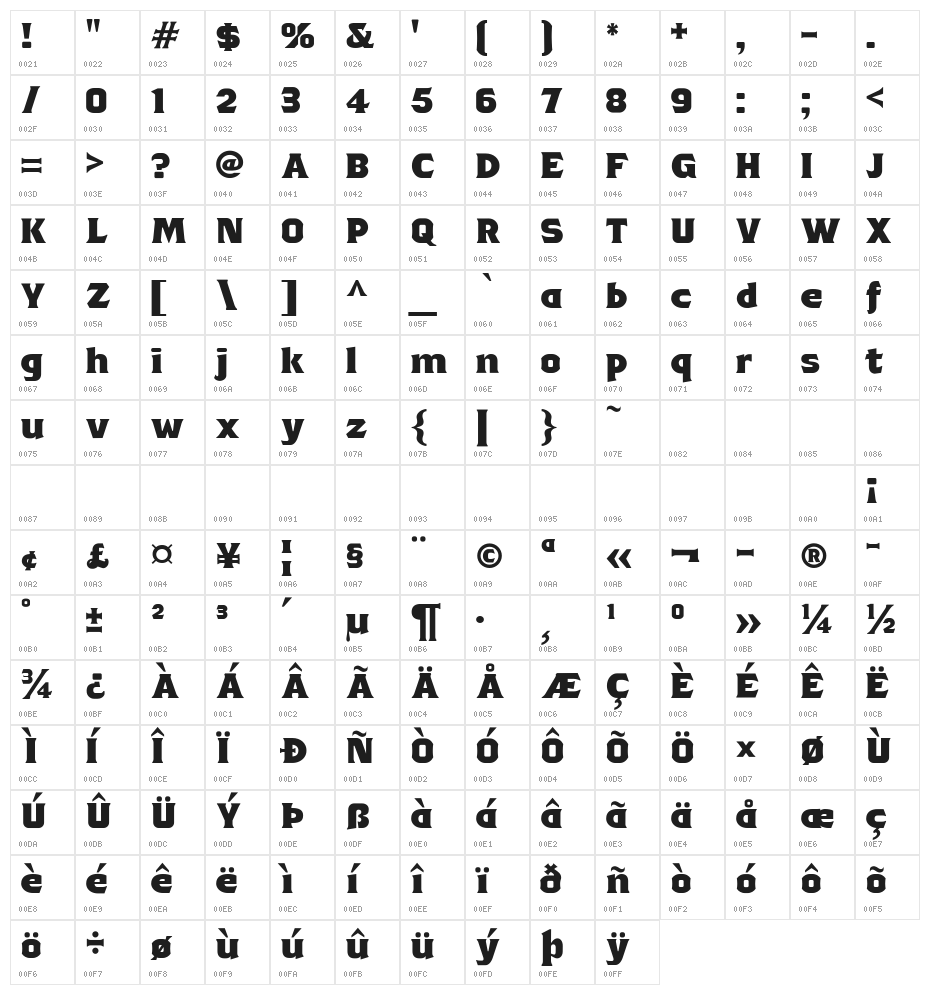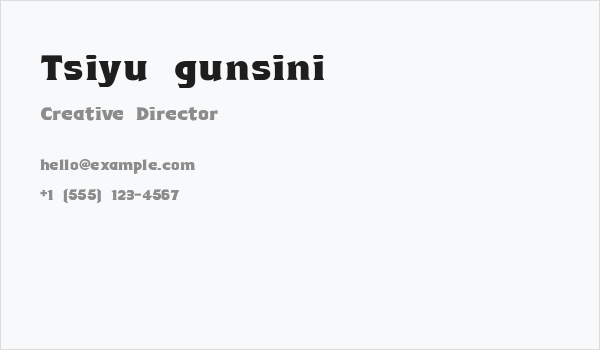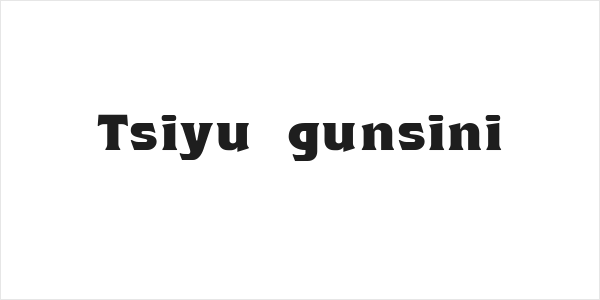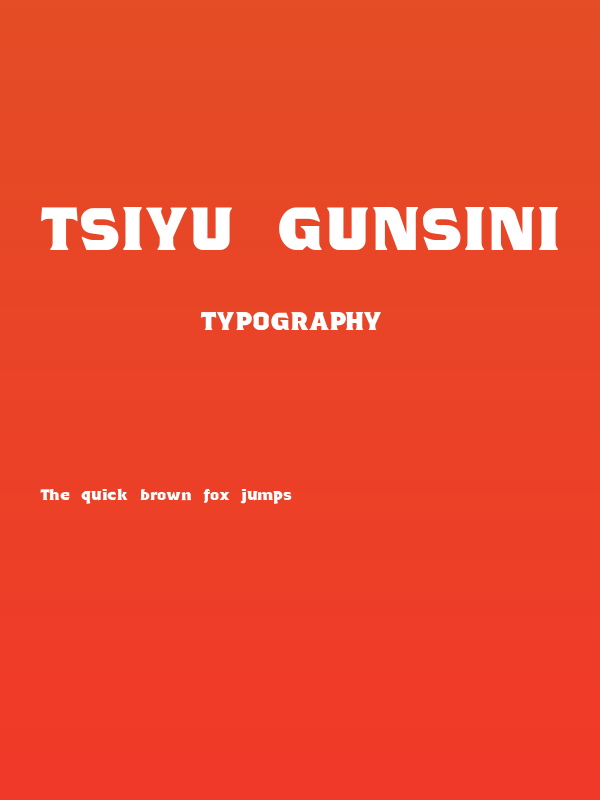
Tsiyu gunsini Font
Tsiyu gunsini Description
This font exhibits a bold and dynamic style with a strong presence. The characters are robust and slightly condensed, featuring thick strokes that convey a sense of strength and stability. The uppercase letters are particularly striking, with angular and sharp edges that add a touch of modernity. The lowercase letters maintain a consistent weight, complementing the uppercase with their rounded yet firm design. Numbers are equally bold, ensuring readability and impact. Special characters are crafted with the same attention to detail, making them suitable for various design needs. Overall, this font is ideal for projects that require a bold statement and a modern aesthetic.
| Proposed Projects | Ideal for branding, headlines, posters, and any design that requires a bold and impactful typeface. |